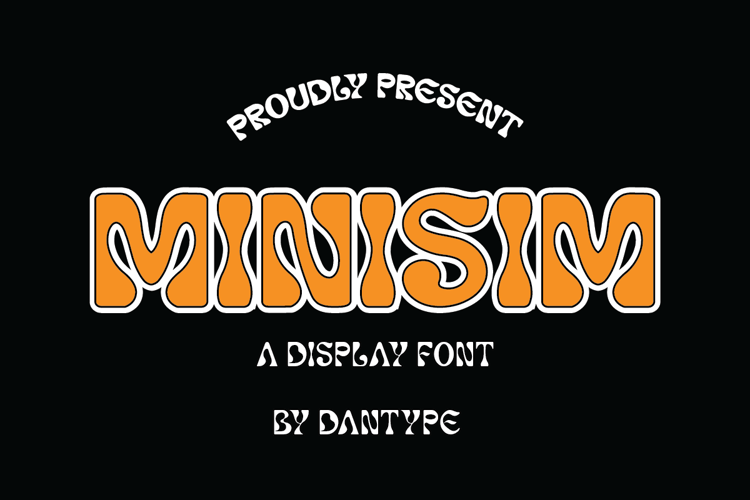
Minisim Font
Minisim Display Font - This font would be perfect for photography, watermarks, social media posts, advertisements, logos & branding, invitations, product design, labels, stationery, product packaging, special events, and other projects. This font is PUA encoded which means you can access all glyphs with ease!